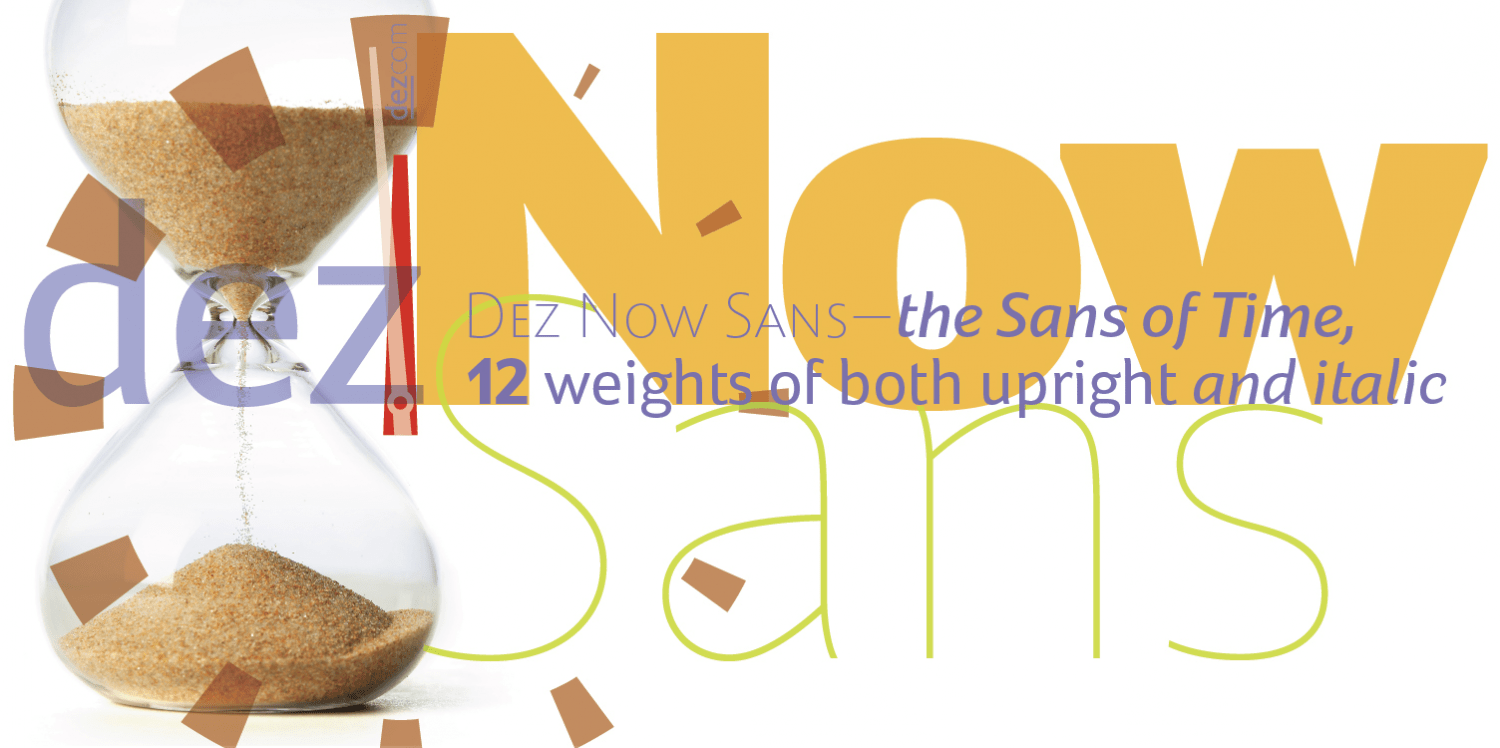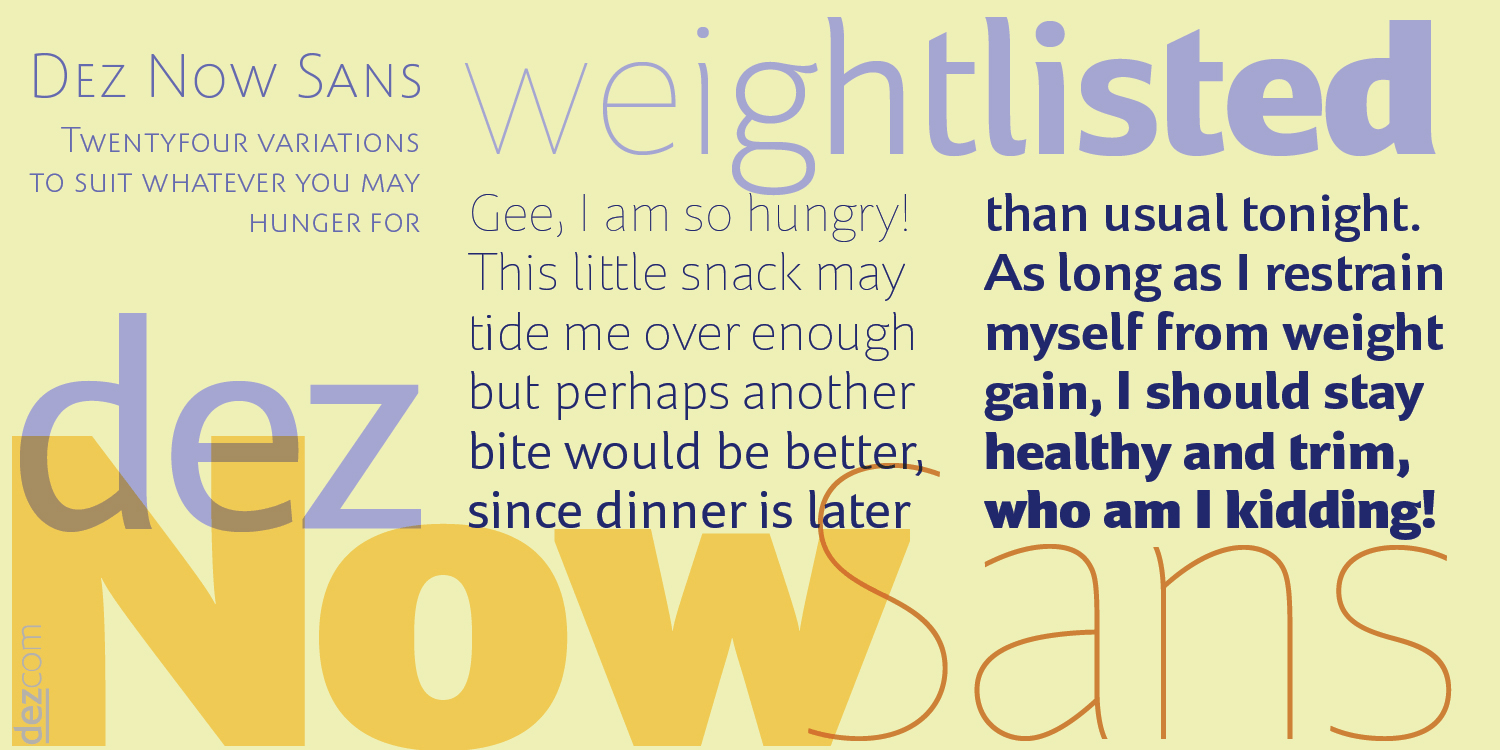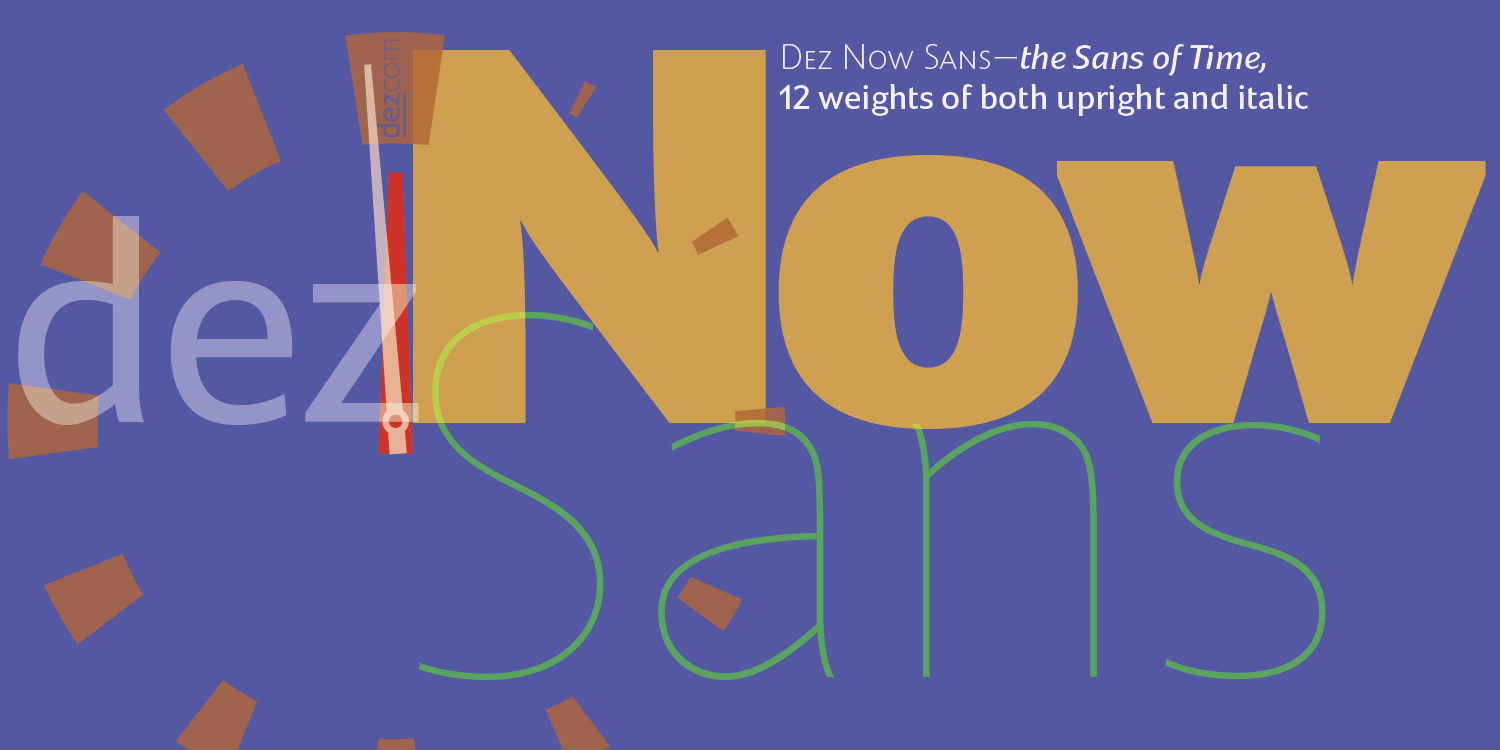
Dez Now Sans
About Dez Now Sans
Dez Now Sans is a humanistic typeface family that was begun in 2005 by Chris Lozos of Dezcom. Since then, it has been nurtured, revised, and expanded to include 12 weights in both upright roman and true italics totaling 24 variations. This allows the…